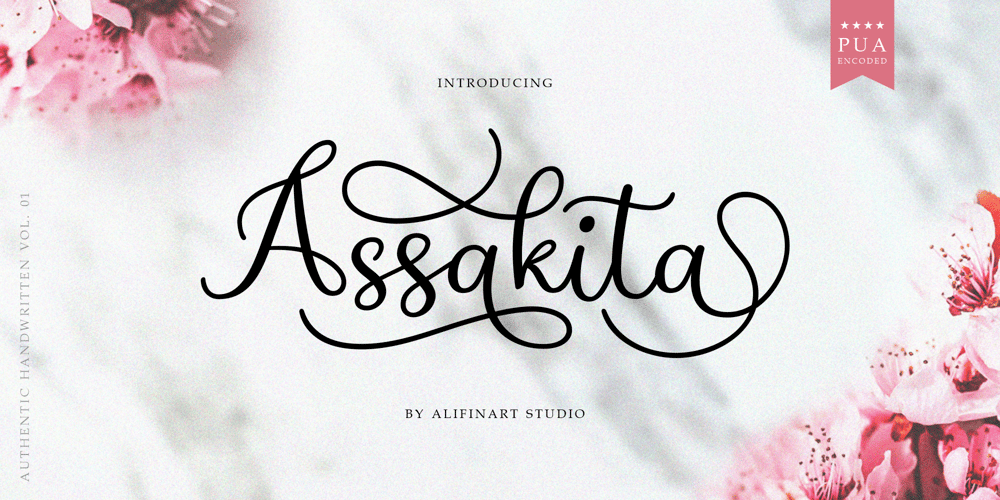
Assakita
Assakita font
Assakita Font Family was designed by Alif Nuryasin and published by Alifinart Studio. Assakita contains 1 styles and family package options. Assakita simplifies elegance into one truly outstanding handwritten font. It maintains its classy calligraphic influences while feeling contemporary and fresh. This versatility will appeal to a wide range of crafty ideas, from letterheads and titles, to stationery. This font is PUA encoded which means you can access all of the glyphs and swashes with ease.The Assakita font features beautiful and stunning Stylistic Alternates. You can access this feature through software that supports the OpenType Feature or can be accessed via the Character Map on Windows or Font Book on a Mac.Please note that the Stylistic Alternate features are also available on Multilingual Accents.Thank you.Alifinart Studioalifinart@gmail.com